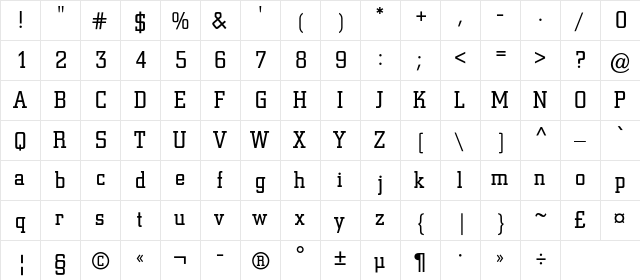
ColiseumC Regular
Design Context for ColiseumC Typeface
ColiseumC is a composed and adaptable typeface that performs quietly and consistently across a wide range of design contexts.